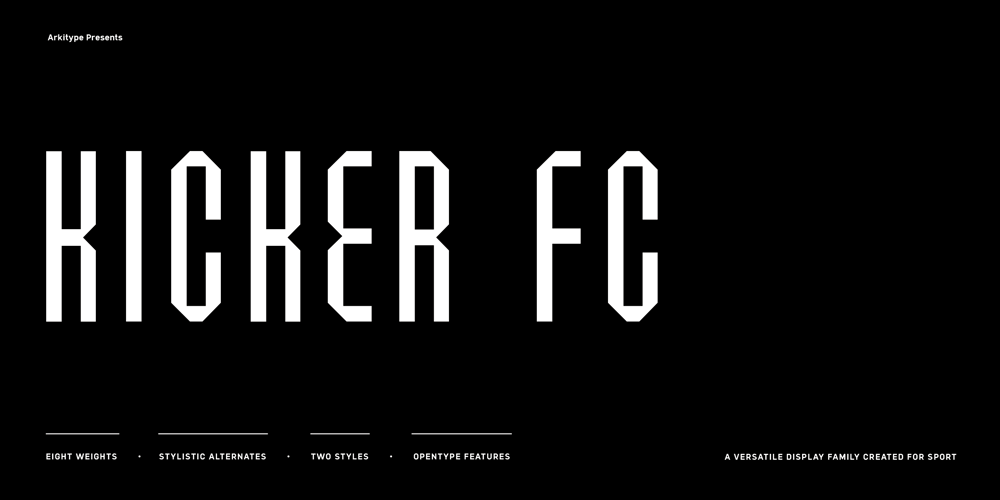
Kicker FC
Kicker FC font
Kicker FC Font Family was designed by Andrew Footit and published by Arkitype. Kicker FC contains 16 styles and family package options. Kicker FC is a typeface created for the love of sport, it has all the right elements to make for a great sports display font to give your brand and art work the right look and feel in this genre. It has a great variation in weights, stylistic alternates to provide flexibility and to add more customisation a shadow version for each weight to give your typography a custom graphic look and feel.Kicker FC is perfect for use in various sports categories, college sports, baseball, basketball, football and as show in all the poster images and more specifically the name Kicker FC, soccer. Not only is the typeface a perfect fit for sport, it works just as well for beverage, tech and various other industries. Narrow in width provides great eye catching headlines.